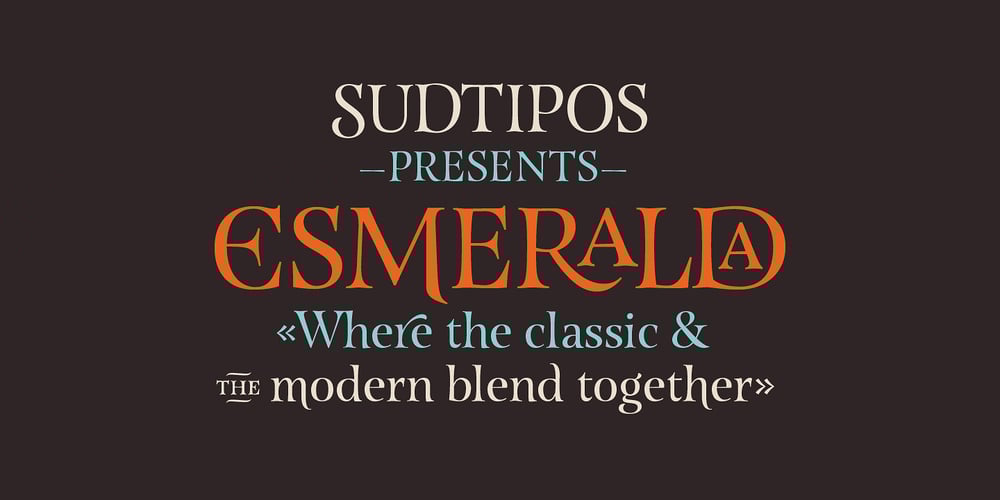
Esmeralda Pro Font Family was designed by Guille Vizzari and published by Sudtipos. Esmeralda Pro contains 1 styles and family package options. From the beginning “Esmeralda” was born with a strong influence of the classical “capitalis monumentalis”, carved in stone. In the same way, the origin of this majuscule writing emerged from the brush, from a way of writing made merely by hand. For this reason, these two universes were intended to lie beneath the shape of each letter, redefining them. And this combination of styles should also be reflected in a lower case set that also allows to open up the spectrum of usage possibilities. Foundational calligraphy represented a solid base for the development of lower case glyphs, ensuring proper interaction with the upper case letters. “Esmeralda” features a great number of ligatures that mix classic structures with a more contemporary impression. With more than eleven hundred glyphs, it provides a multiplicity of uses across a wide combinatory of ligatures, alternative signs, initial caps, miscellaneous and connectors; each one of them accessible through Open Type. “Esmeralda” is perfect to speak with a classical yet fresh, modern – and a little bit bold – tone of voice. Designed by Guille Vizzari, together with the tough and remarkable work of Ale Paul, in use “Esmeralda” stands out in a subtle and unexpected way that’s almost unnoticeable. Its delicate yet solid curves, serifs and endings give each composition a fine, elegant and exquisite feeling, along with a firm and sturdy look. “Esmeralda” was initially born as a typographic project developed by Guillermo Vizzari – tutored by Ale Paul and Ana Sanfelippo – under completion of the Specialization in Typography Design at University of Buenos Aires, Argentina, during the years 2011 and 2012.